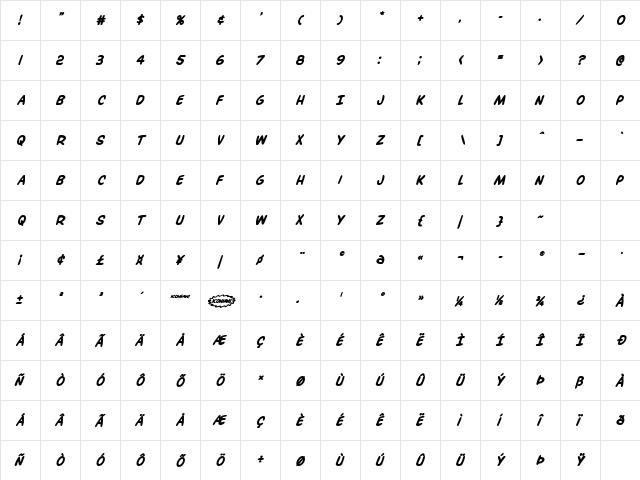
Overstreet Bible Bold Italic Bold Italic
Design Context for Overstreet Bible Bold Italic Typeface
Overstreet Bible Bold Italic is a composed and adaptable typeface that performs quietly and consistently across a wide range of design contexts. The slanted form adds forward momentum and visual energy. The heavy weight commands attention and anchors typographic hierarchies.
Pro Tip: Use Overstreet Bible Bold Italic for emphasis, pull quotes, and subheadings where its slanted energy can add rhythm to the layout.